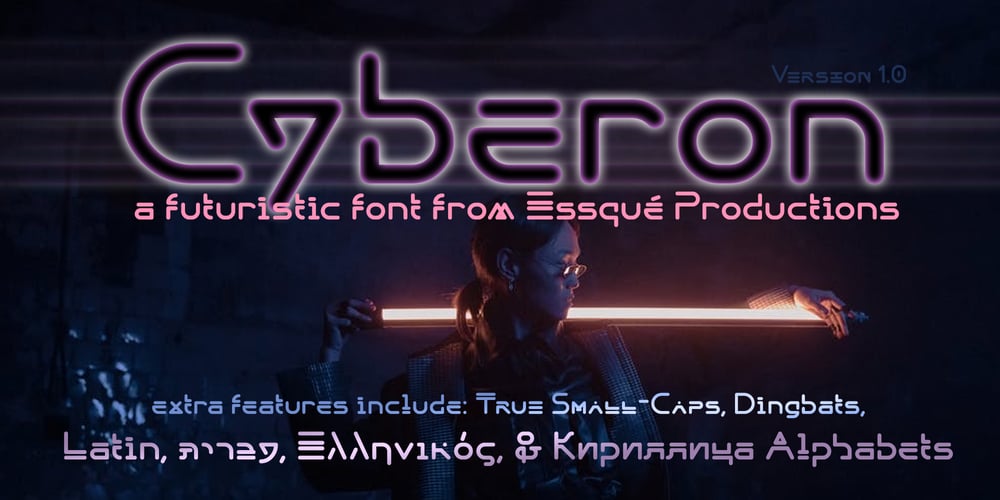
Cyberon Font Family was designed by Stephen M Knouse and published by Essqué Productions. Cyberon contains 1 styles and family package options. A futuristic interface font originally developed for event artwork; now expanded for full multi-language use. Also includes limited dingbats. Good for techno, rave, electronic, sci-fi, and other genres that require a more unique look.